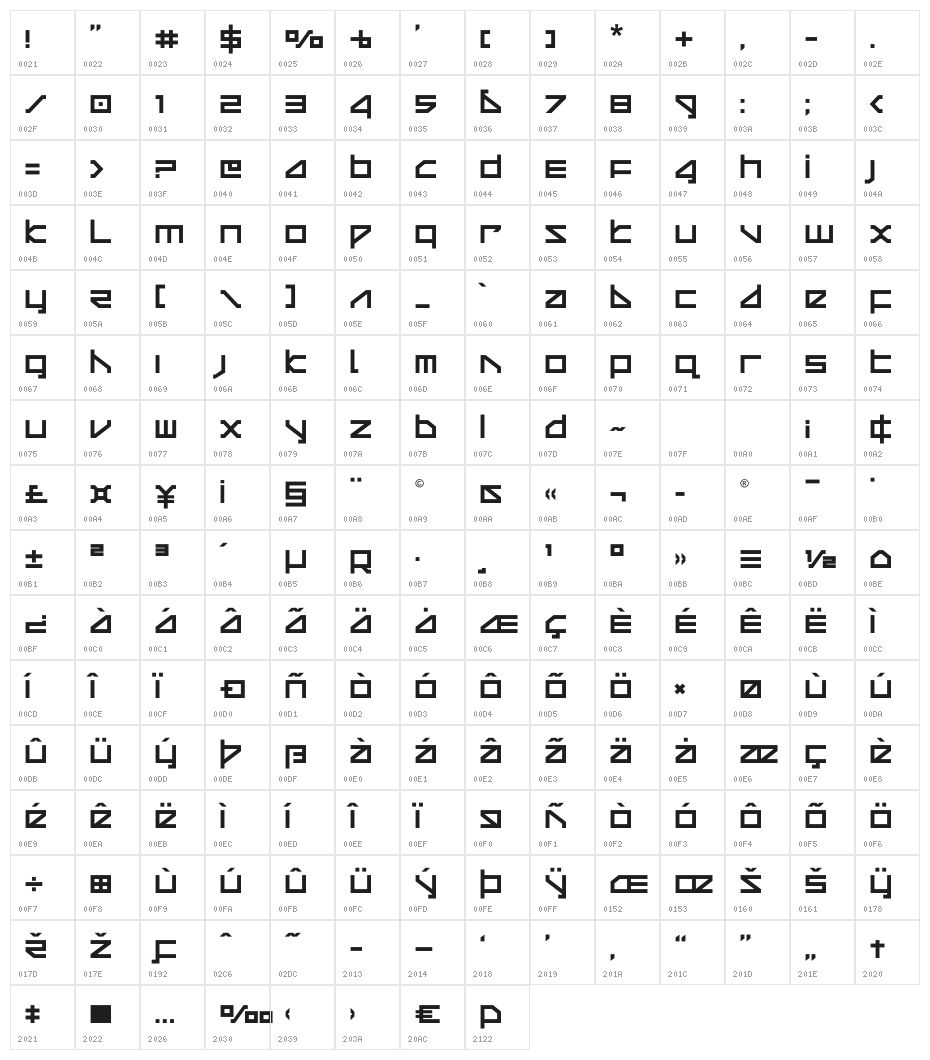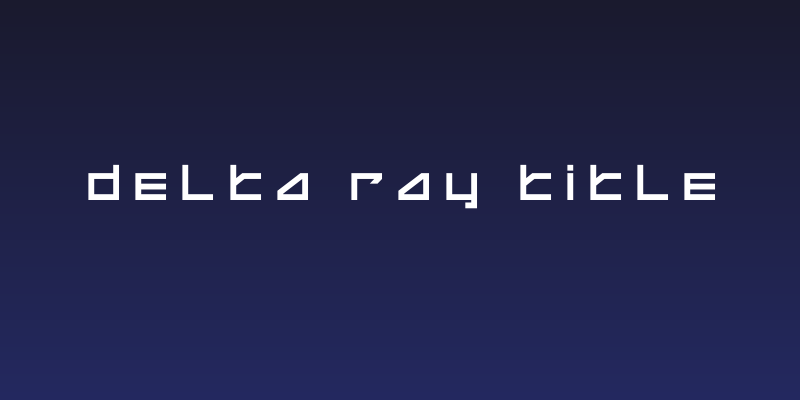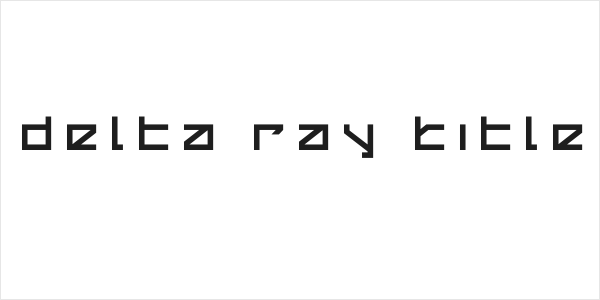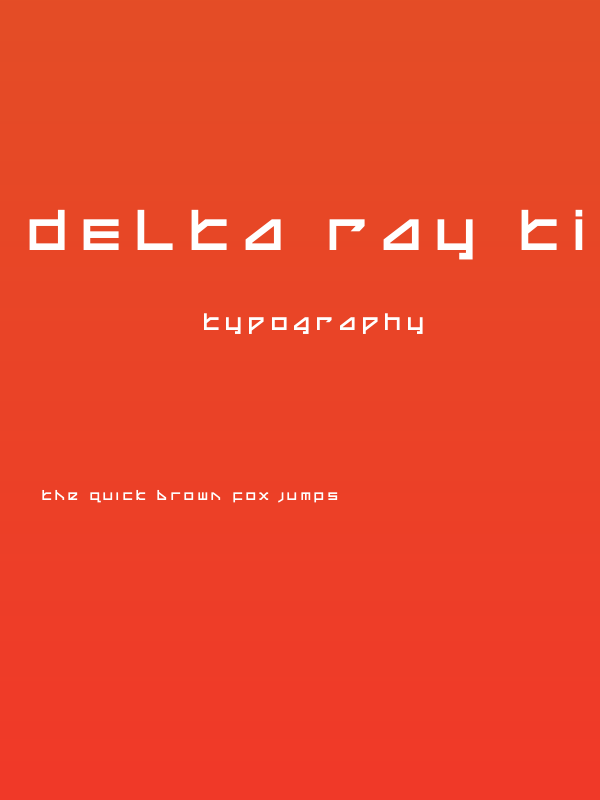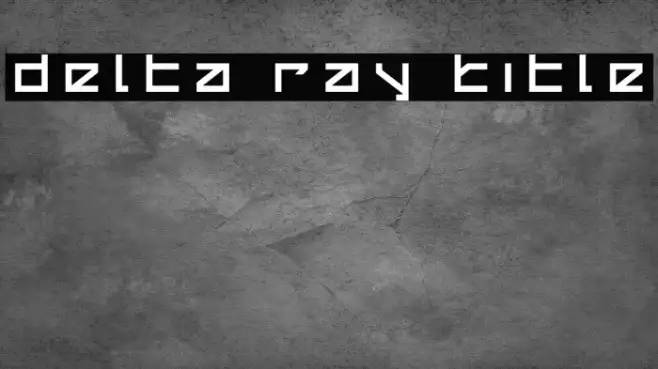
Delta Ray Title Font
Delta Ray Title Description
This font features a geometric and futuristic design with sharp angles and clean lines. The characters are constructed with a consistent stroke width, giving it a uniform appearance. The uppercase and lowercase letters maintain a similar structure, enhancing readability while preserving a unique style. The numbers and special characters are designed to match the angular and modern aesthetic of the alphabet. This font is ideal for projects that require a contemporary and edgy look, such as technology-related branding or sci-fi themed designs.
| Proposed Projects | Ideal for technology branding, sci-fi themes, modern posters, and digital interfaces. |